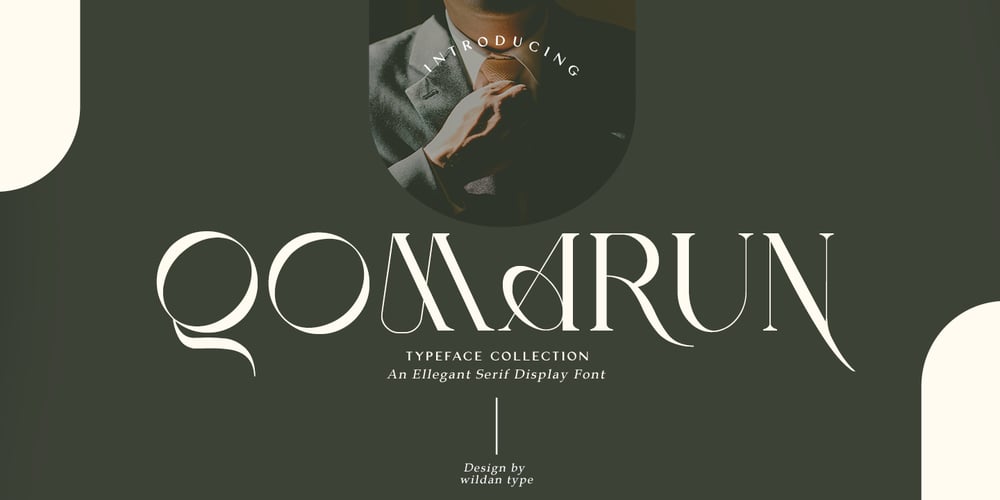
Qomarun Font Family was designed by Wildan Carbon and published by Wildan Type. Qomarun contains 1 styles and family package options. Introducing new typeface. Qomarun- A modern, luxury, fashionable display serif font. It has unic construction for future style. Qomarun perfectly used for product presentation, elegant logo design, packaging or invitation cards or heading text. it is allcap with symbol and multilingual supportFeaturesTwo style/ Numbers & Punctuation / Extensive Language Support/ligature